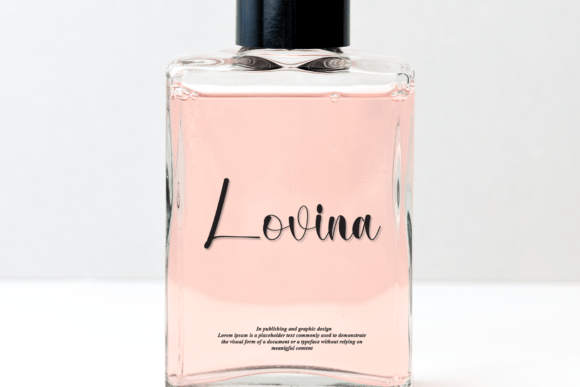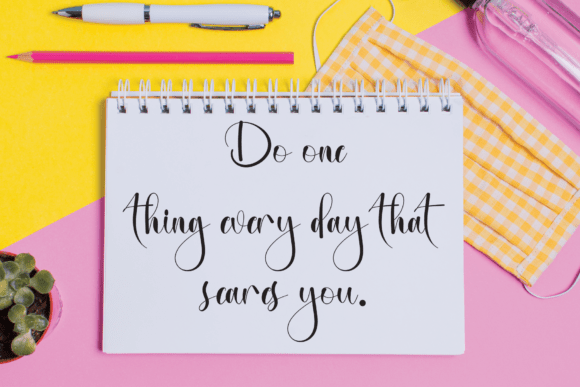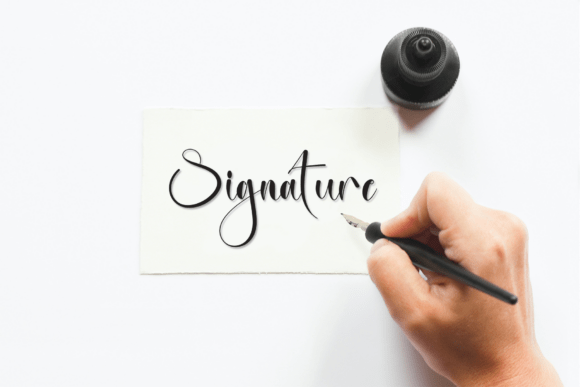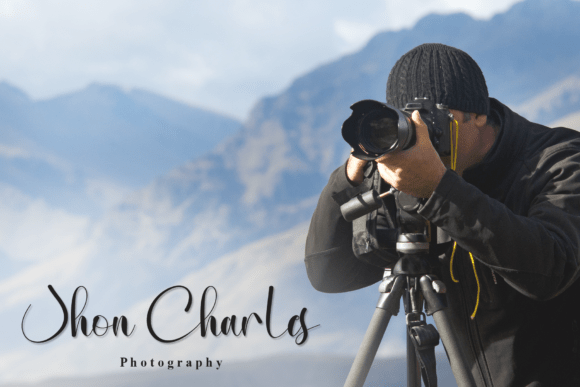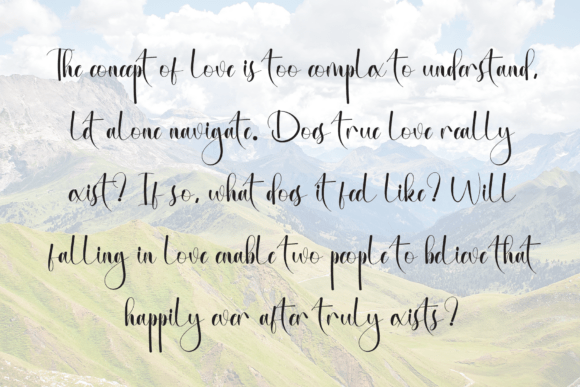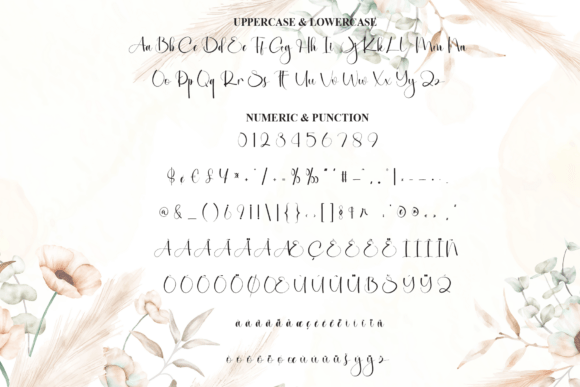
Unlocking Creative Potential with Anantha Font
Have you ever been in the middle of a design project, and suddenly, you’re stuck on finding the perfect font? I recall a particularly frustrating experience while working on a wedding invitation design. My client wanted something elegant, yet modern, and I was determined to deliver. After hours of scouring the internet, I stumbled upon a font that caught my eye – Anantha Font. It was love at first sight! ✨
An Honest Review of Anantha Font
• ✨ Versatility: Anantha Font is perfect for a wide range of design projects, from wall displays and wedding invitations to social media post logos and product packaging.
While Anantha Font is an excellent choice for many design projects, there are a few minor limitations to consider:
• ⚠️ Learning Curve: As with any new font, it may take some time to get familiar with the various glyphs and stylistic alternates.
• 🤔 PUA Character Encoding: While the font uses PUA character encoding, which allows for easy access to glyphs without additional design software, it may require some exploration to get the most out of this feature.
The Story Behind Anantha Font
Anantha Font was created with the goal of providing designers with a versatile, elegant font that could be used in a wide range of design projects. The creators drew inspiration from classic script fonts, while incorporating modern elements to make it fresh and exciting. The result is a font that is both timeless and trendy, perfect for designers who want to add a touch of sophistication to their work.